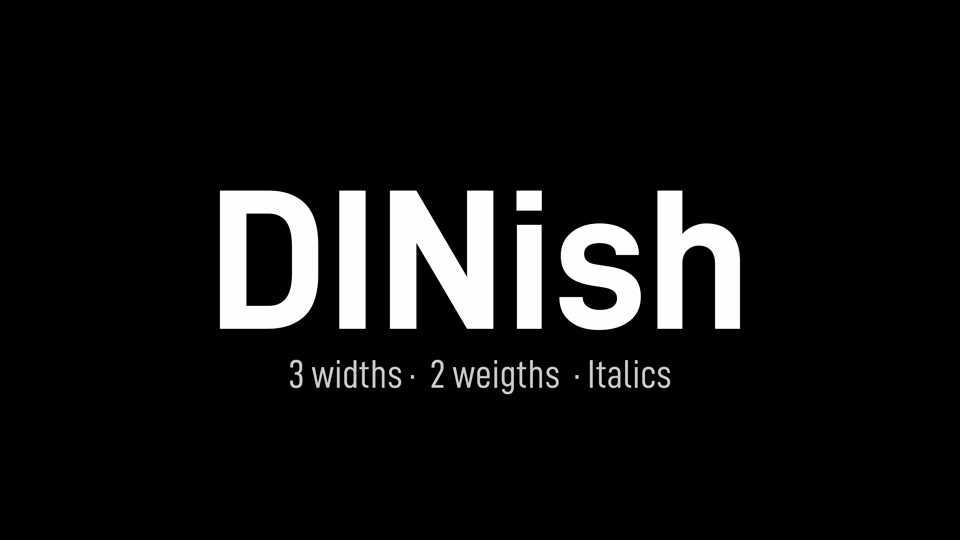
Download DINish typeface, a sans serif font family with eight styles that refers to DIN 1451. DINish was drawn with the human reader in mind, with subtle but loving exceptions to the rigid grid-and-ruler specification from the Deutsche Norm.
Designer: Bert Driehuis